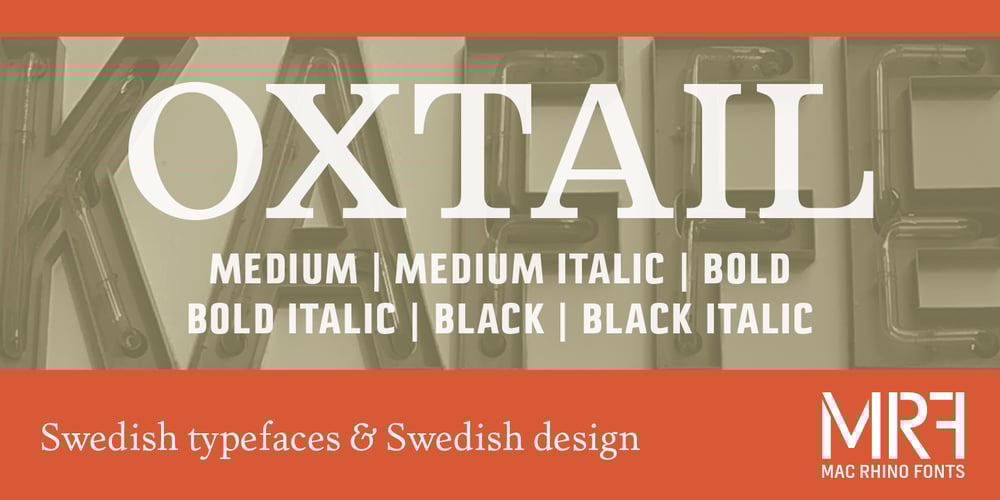
Oxtail Font Family was designed by Stefan Hattenbach and published by MAC Rhino Fonts. Oxtail contains 6 styles and family package options. This typeface has its roots in the Egyptienne-family which became popular in the beginning of the 19th Century. To make the family more unique and personal, ”twists” have been crafted throughout the design. All together a family of 6 weights, including: Medium, Medium Italic, Bold, Bold Italic, Black and Black Italic.